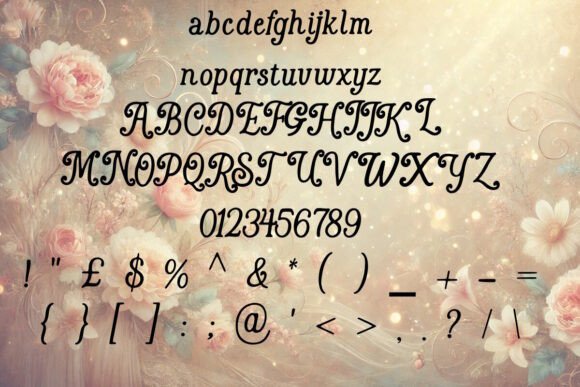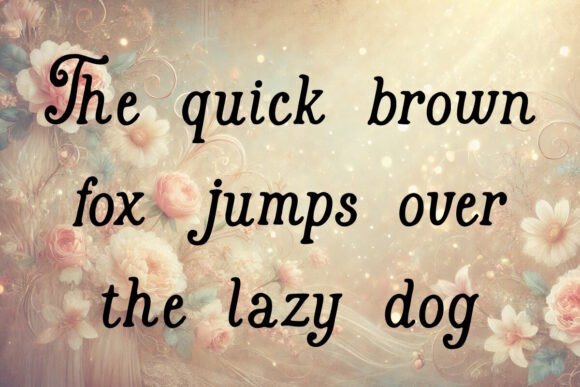
Introducing Ever After Font: The Elegant and Whimsical Script Font for Romantic Designs
Are you looking for a font that can add a touch of romance and charm to your designs? Look no further than Ever After, an elegant and whimsical script font that is perfect for creating enchanting and dreamy projects. With its delicate swirls and vintage-inspired curves, Ever After is ideal for wedding invitations, fairytale themes, and sophisticated branding.
The Characteristics of Ever After Font
Ever After is a beautifully crafted script font that features delicate swirls and curves, giving it a whimsical and romantic feel. The font has a vintage-inspired look, with subtle imperfections that add to its charm. The letters are intricately designed, with flowing connections that create a sense of movement and fluidity. The overall effect is a font that is both elegant and playful, making it perfect for a wide range of design projects.
Perfect for Wedding Invitations and Fairytale Themes
Ever After is particularly well-suited for wedding invitations and fairytale-themed designs. The font’s romantic and whimsical feel makes it perfect for creating beautiful and memorable wedding stationery, such as invitations, save-the-date cards, and thank-you notes. The font’s vintage-inspired look also makes it ideal for fairytale-themed designs, such as children’s book illustrations, posters, and packaging.
Dreamy Branding and Sophisticated Designs
Ever After is not just limited to wedding invitations and fairytale themes. The font’s elegant and sophisticated feel makes it perfect for creating dreamy branding and high-end designs. Whether you’re creating a logo, business card, or website, Ever After can add a touch of luxury and sophistication to your project. The font’s versatility also makes it suitable for a wide range of industries, from fashion and beauty to food and hospitality.
Why Choose Ever After Font?
So why choose Ever After font for your design projects? Here are just a few reasons:
- Elegant and Whimsical: Ever After is a beautifully crafted script font that adds a touch of romance and charm to any design.
- Vintage-Inspired: The font’s vintage-inspired look gives it a unique and distinctive feel that sets it apart from other script fonts.
- Versatile: Ever After is suitable for a wide range of design projects, from wedding invitations and fairytale themes to dreamy branding and sophisticated designs.
How to Use Ever After Font
Using Ever After font is easy. Here are a few tips to get you started:
- Pair it with Other Fonts: Ever After looks great when paired with other fonts, such as sans-serif fonts or serif fonts. Experiment with different combinations to find the perfect look for your project.
- Use it for Headings and Titles: Ever After is perfect for headings and titles, where its elegant and whimsical feel can really shine.
- Add Decorative Elements: Consider adding decorative elements, such as flourishes or swashes, to give your design an extra touch of elegance and sophistication.
Ever After font is a beautiful and versatile script font that is perfect for adding a touch of romance and charm to your designs. With its delicate swirls and vintage-inspired curves, this font is ideal for wedding invitations, fairytale themes, and dreamy branding. Whether you’re creating something magical, timeless, or sophisticated, Ever After will bring an enchanting touch to every project. So why wait? Download Ever After font today and start creating your own enchanting designs!